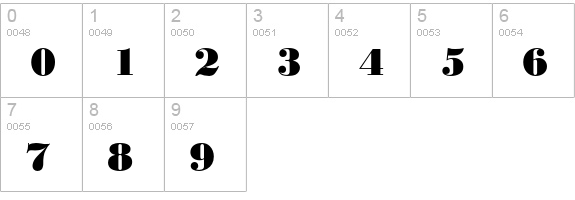
Bodoni Black Font Details
Bodoni Black is a maximum-weight, dramatic variant in the Bodoni typeface family \xE2\x80\x94 well suited to maximum-impact headlines, posters, and packaging.
Bodoni Black is a timeless and elegant typeface that exudes sophistication and class. With its bold and sturdy appearance, Bodoni Black commands attention and makes a powerful statement in any design project. The sleek lines and sharp serifs of this font convey a sense of modernity and refinement, making it a popular choice for headlines, logos, and branding materials. The best part? Bodoni Black is available for free download at FontsMarket.com. This means that designers and creatives can easily access this versatile font and incorporate it into their work without any cost. Whether you're working on a print ad, website design, or packaging project, Bodoni Black offers a striking and polished look that is sure to elevate your design to the next level. Download Bodoni Black today and add a touch of sophistication to your creations.